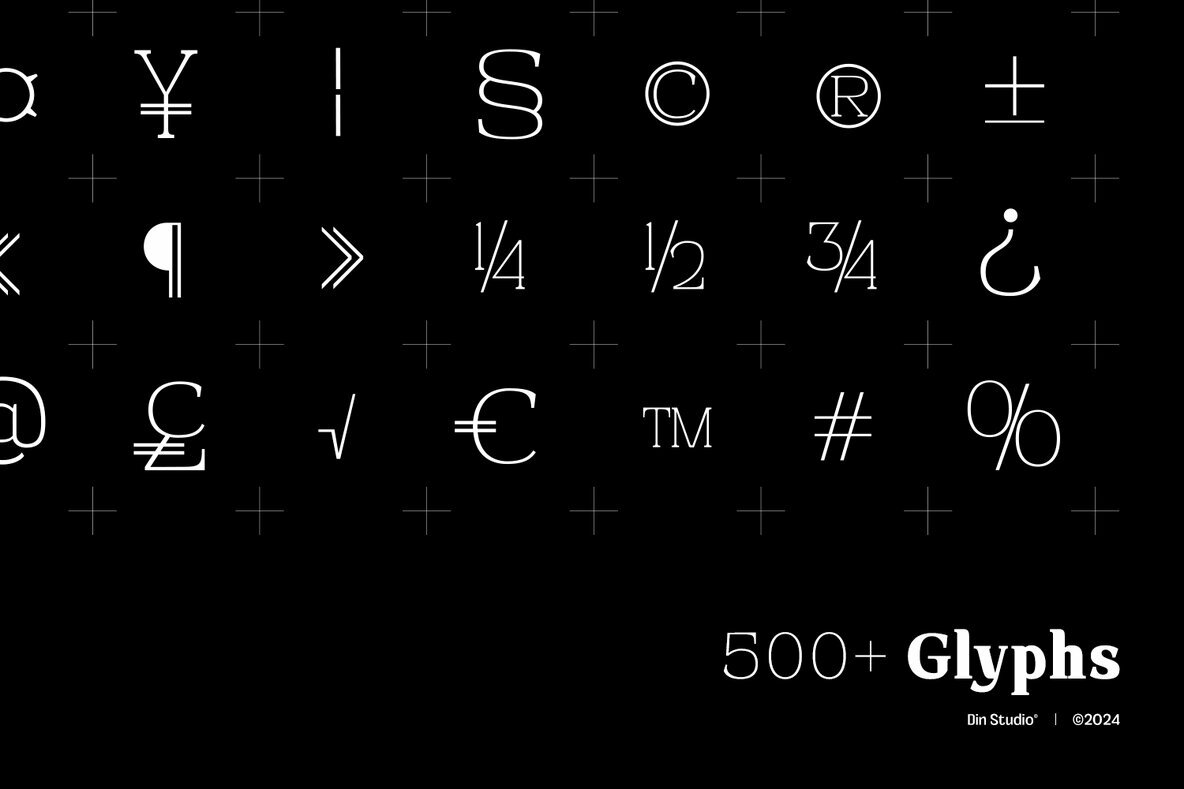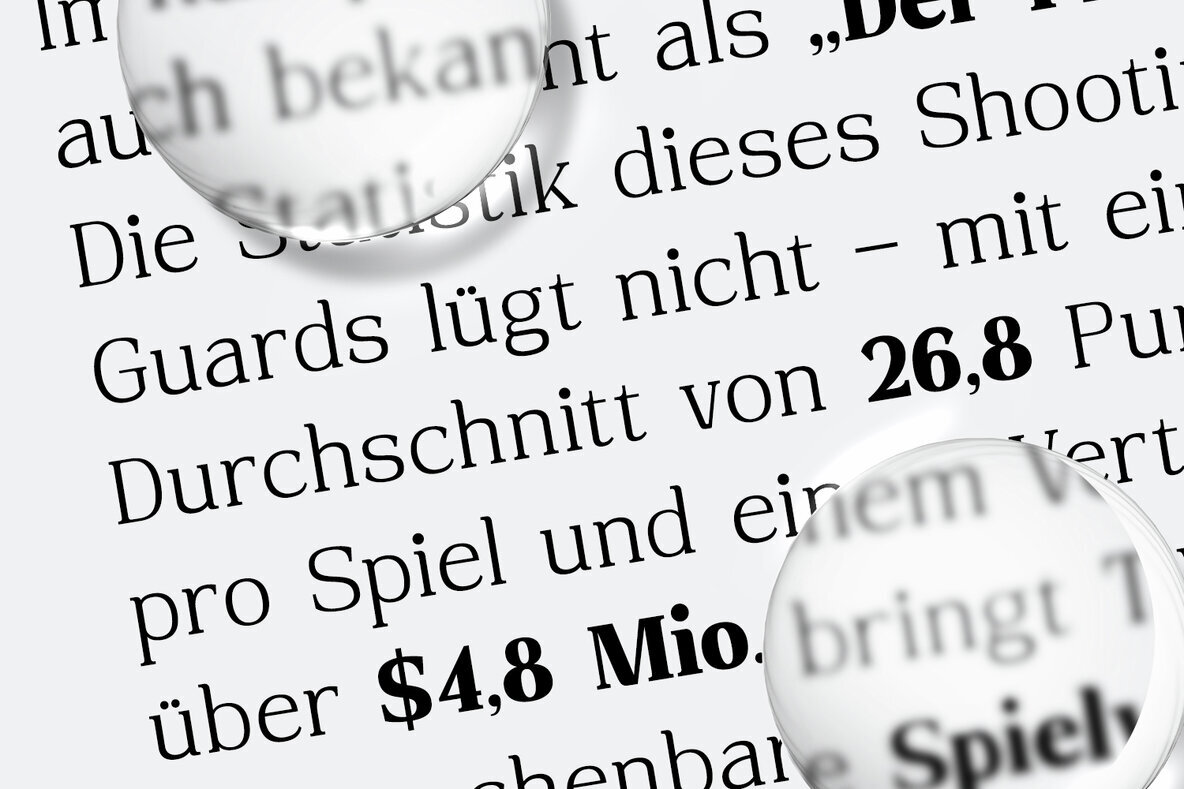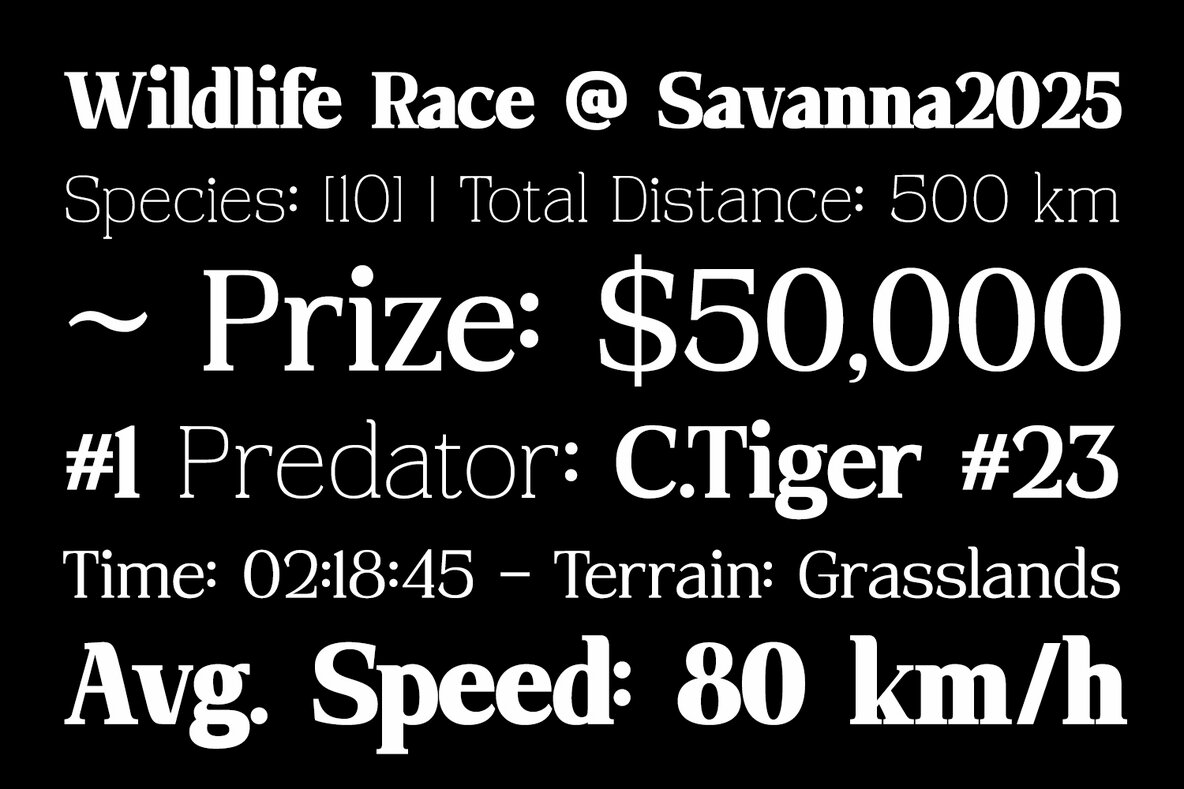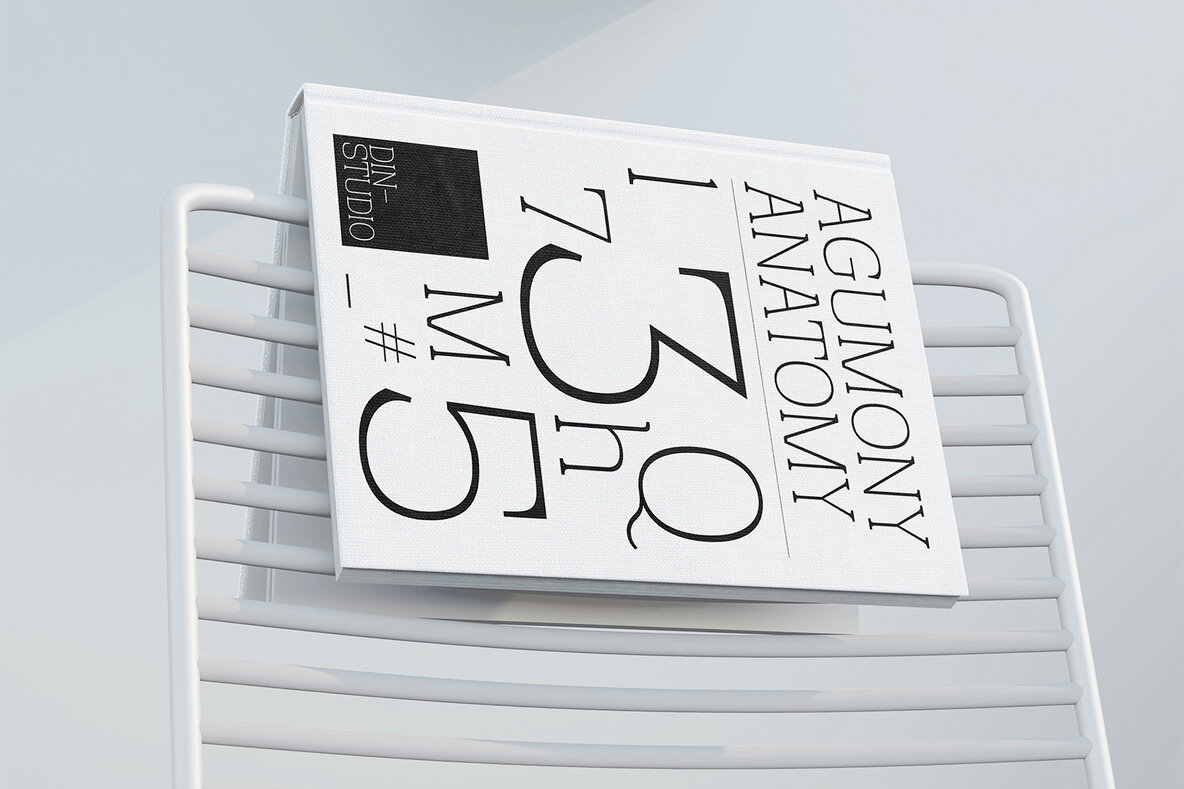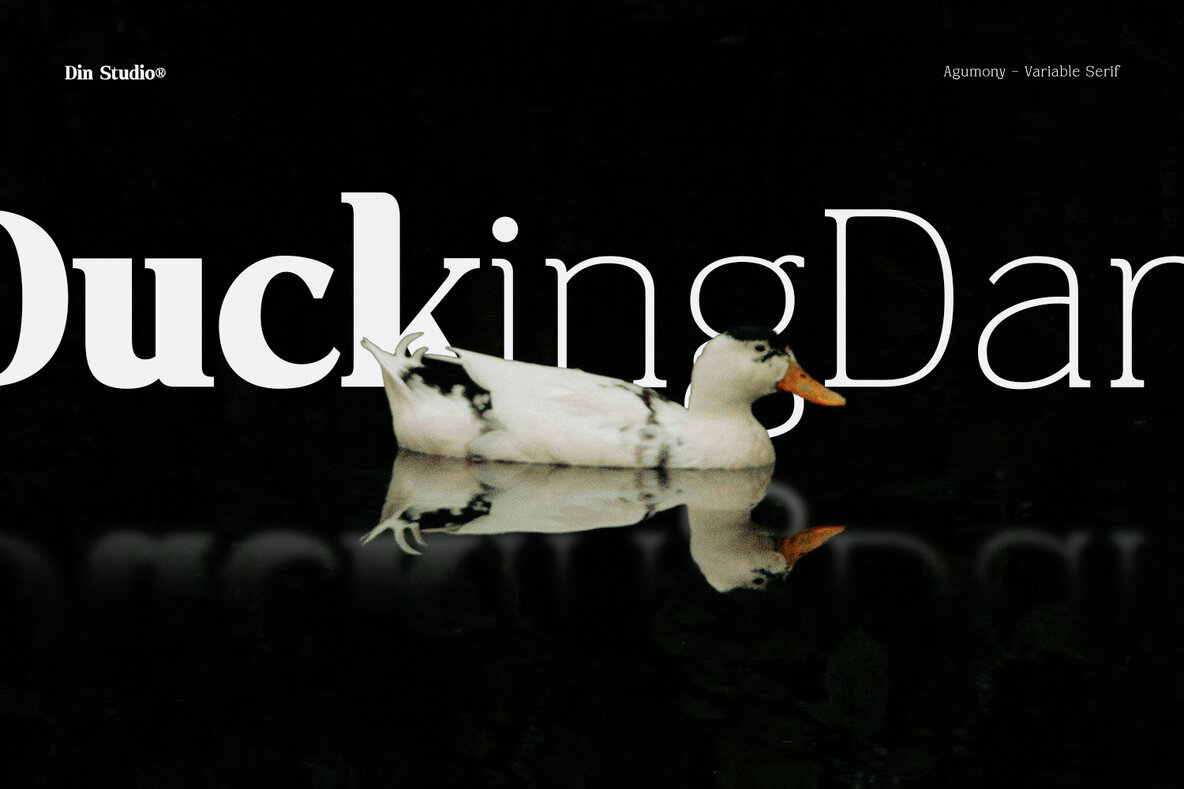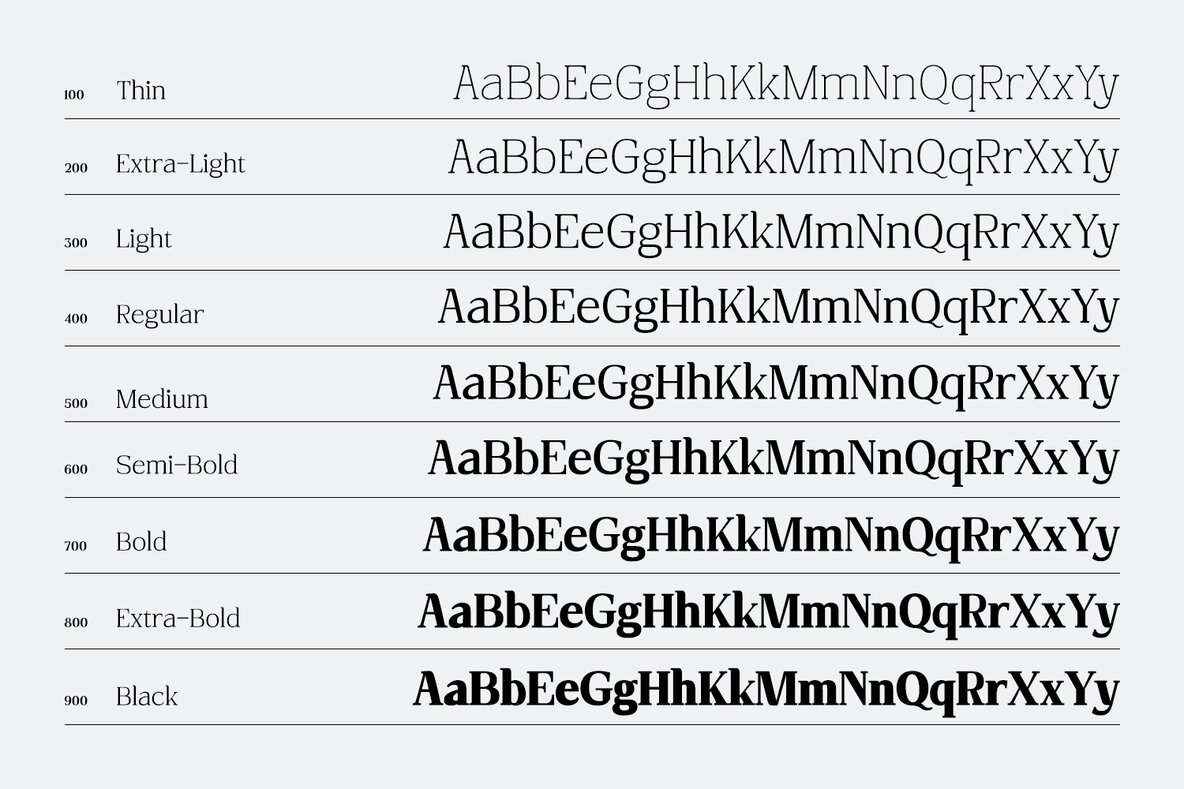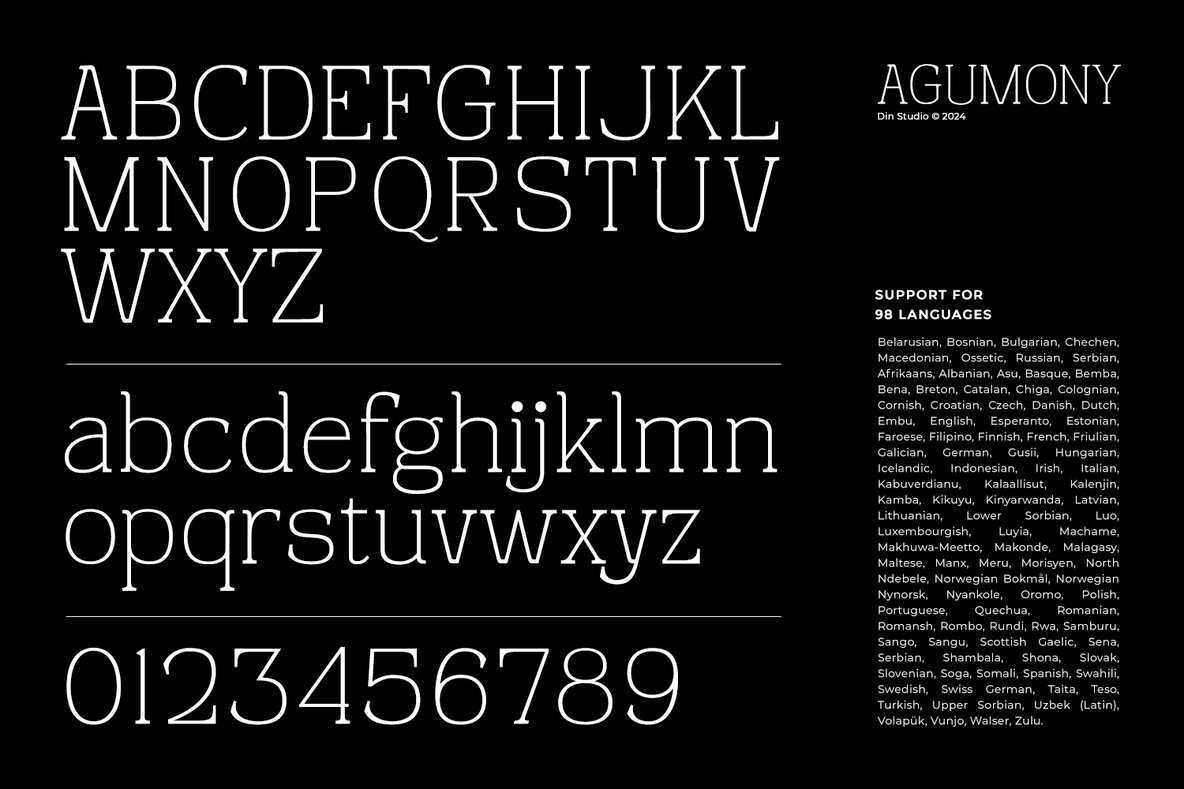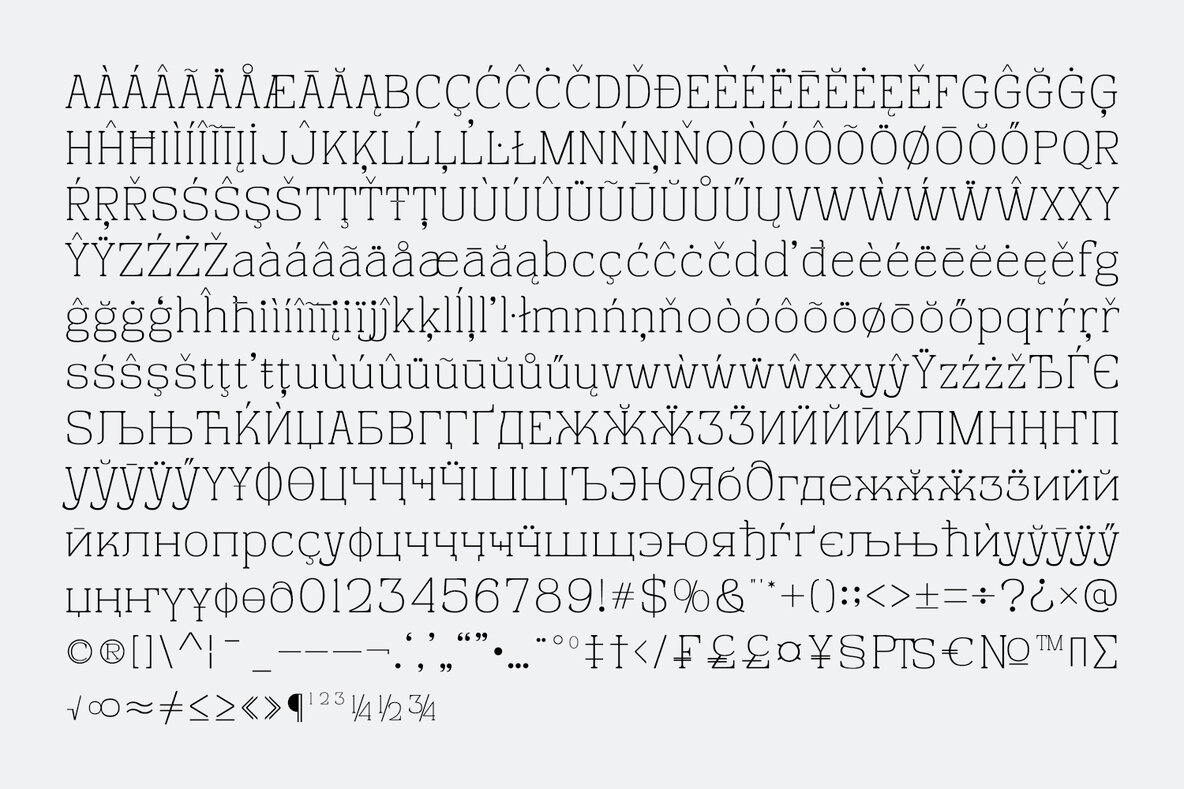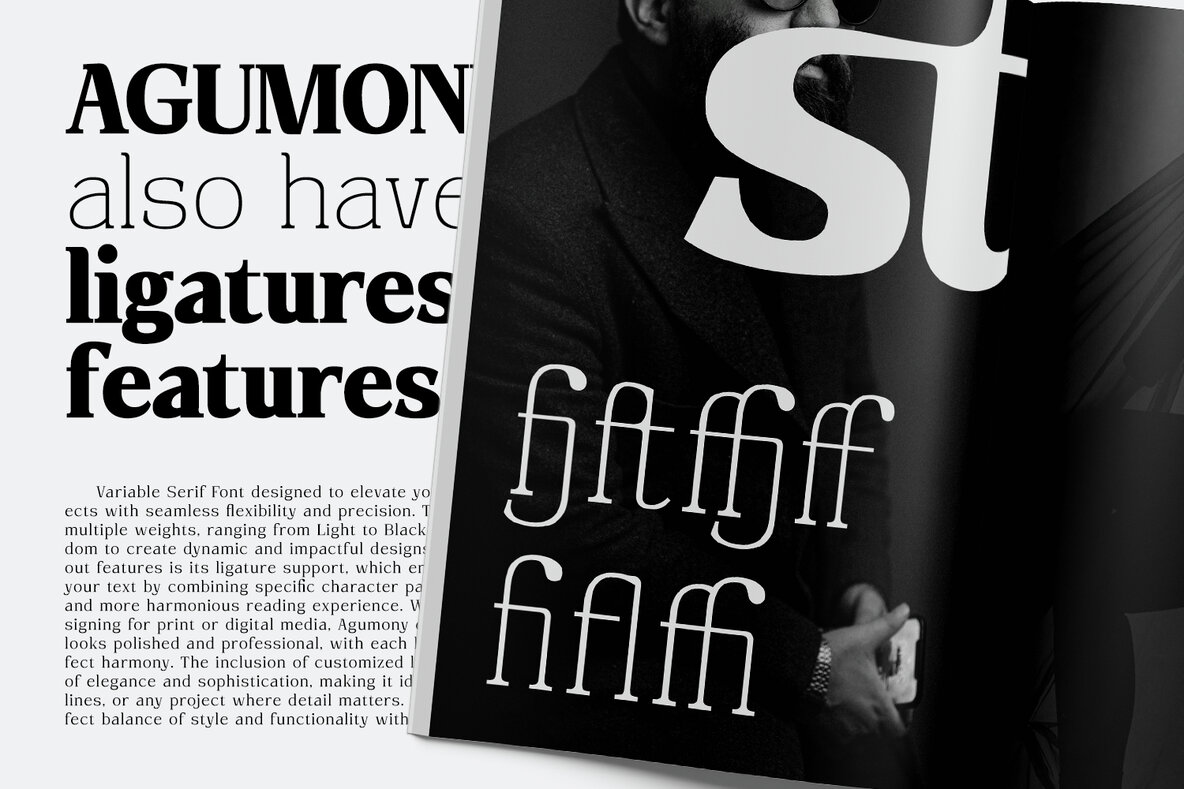
Agumony Font
Agamong is an elegant and sophisticated serif font that features high contrast between thick and thin strokes, embodying a modern and refined aesthetic. Perfect for luxury branding, editorial layouts, and adding a touch of graceful style to minimalist logos.